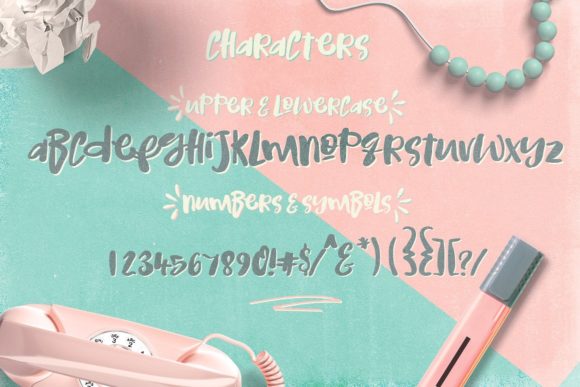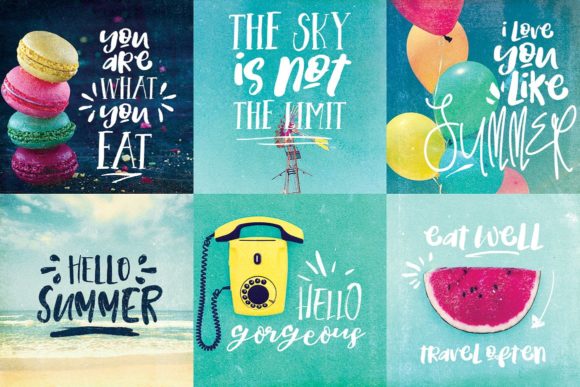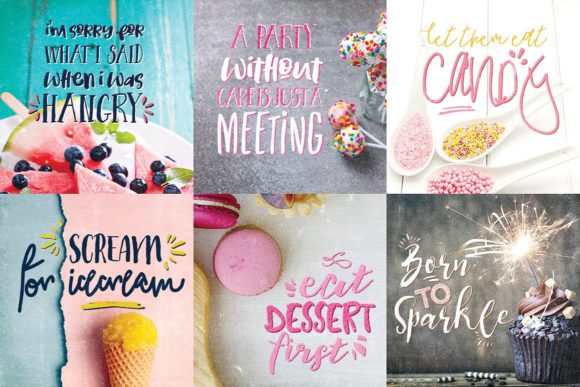
Discover the Beauty of Typography with Going Slow Font
Are you tired of using the same old fonts in your designs? Look no further! The Going Slow Font is a brand new mixed upper and lowercase font that is taking the design world by storm. With its unique style and versatility, this font is a must-have for designers and crafters alike.
What is Going Slow Font?
The Going Slow Font is a carefully crafted font that combines the elegance of uppercase letters with the playfulness of lowercase letters. This mixed font is perfect for creating visually appealing designs that stand out from the crowd. Whether you’re working on a logo, a poster, or a digital project, the Going Slow Font is sure to add a touch of sophistication and whimsy.
Key Features of Going Slow Font
- Mixed Upper and Lowercase Letters: The Going Slow Font features a unique blend of uppercase and lowercase letters, creating a visually interesting and dynamic effect.
- Regular and Italic Styles: This font comes in two styles: regular and italic. This allows you to create multiple unique designs in an instant, from elegant and refined to playful and cursive.
- High-Quality Design: The Going Slow Font is designed with precision and attention to detail, ensuring that it looks great in any size or application.
The Going Slow Font offers a range of benefits for designers and crafters, including:
- Instant Design Versatility: With the regular and italic styles, you can create a wide range of designs without having to switch between multiple fonts.
- Unique Visual Identity: The mixed upper and lowercase letters of the Going Slow Font create a distinctive look that sets your designs apart from others.
- Ease of Use: This font is easy to read and works well in a variety of contexts, from digital screens to print materials.
How to Use Going Slow Font in Your Designs
Using the Going Slow Font in your designs is easy! Here are a few tips to get you started:
- Pair it with Other Fonts: The Going Slow Font works well with a range of other fonts, so feel free to experiment with different pairings to find the perfect combination.
- Experiment with Sizes and Styles: Don’t be afraid to try out different sizes and styles of the Going Slow Font to add visual interest to your designs.
- Use it for Headings and Body Text: The Going Slow Font is versatile enough to use for both headings and body text, making it a great choice for a wide range of design projects.
The Going Slow Font is a game-changer for designers and crafters looking to add a touch of elegance and whimsy to their work. With its unique mixed upper and lowercase style and versatile regular and italic styles, this font is sure to become a favorite in your design toolkit. So why wait? Download the Going Slow Font today and start creating stunning designs that stand out from the crowd!
Tips and Tricks for Getting the Most Out of Going Slow Font
Here are a few more tips and tricks for getting the most out of the Going Slow Font:
- Use it for Branding: The Going Slow Font is perfect for creating a unique visual identity for your brand, so consider using it for logos, business cards, and other marketing materials.
- Experiment with Colors: The Going Slow Font looks great in a range of colors, so don’t be afraid to experiment with different color schemes to find the perfect look for your design.
- Try it in Digital Projects: The Going Slow Font works well in digital projects, such as websites, social media graphics, and email newsletters, so be sure to try it out in your next digital design project.